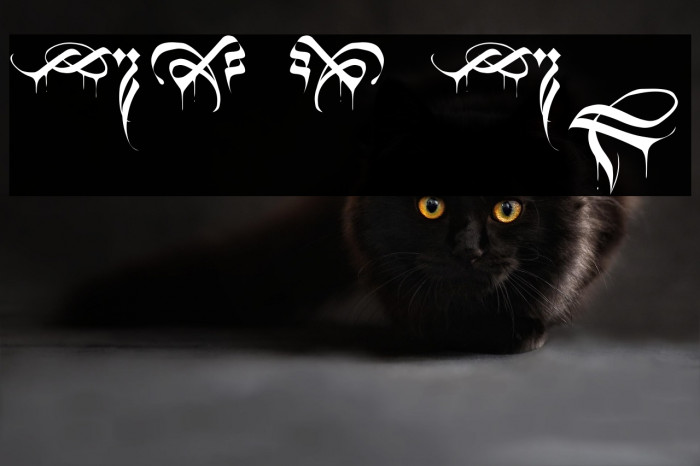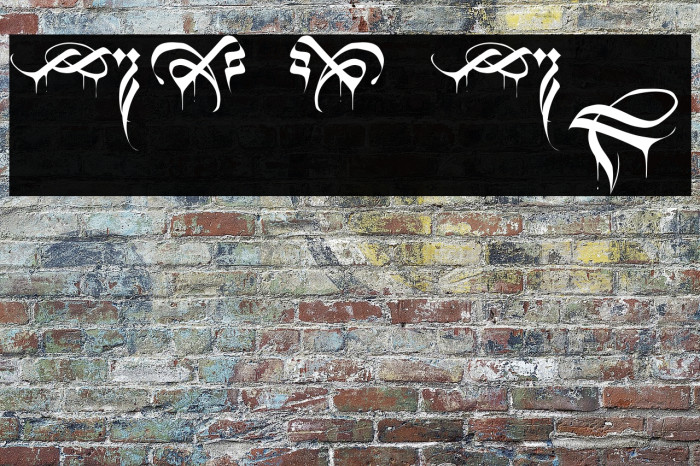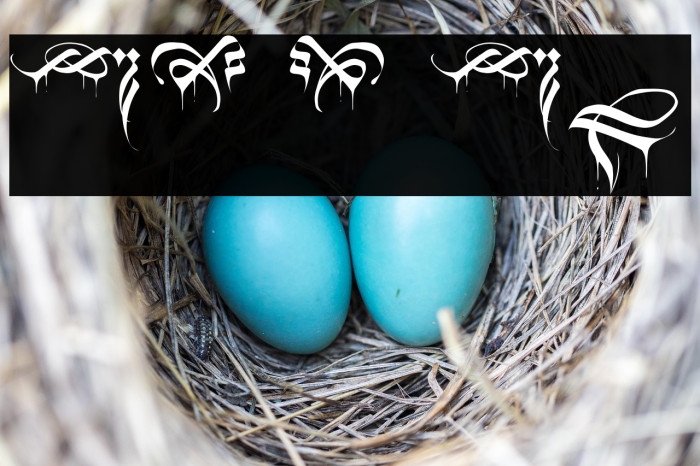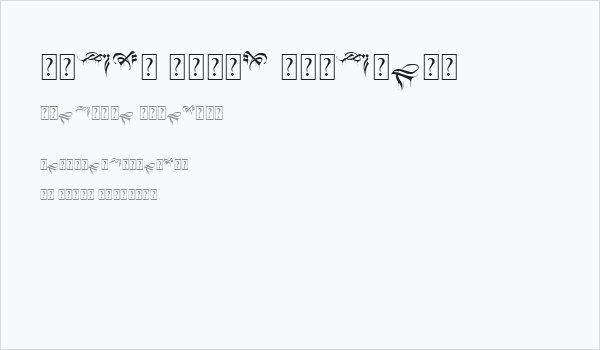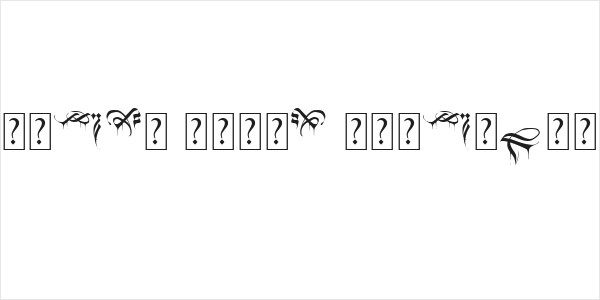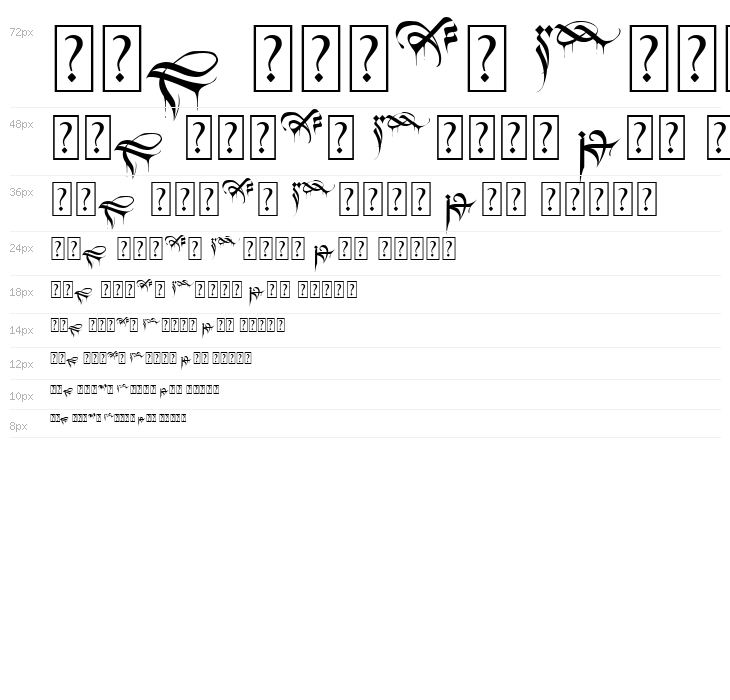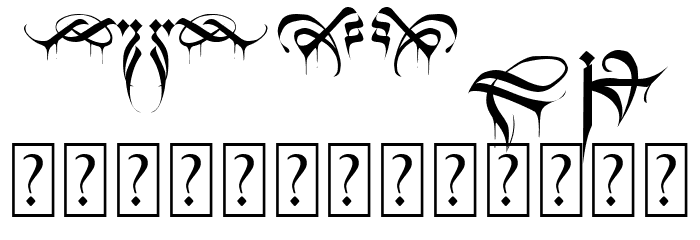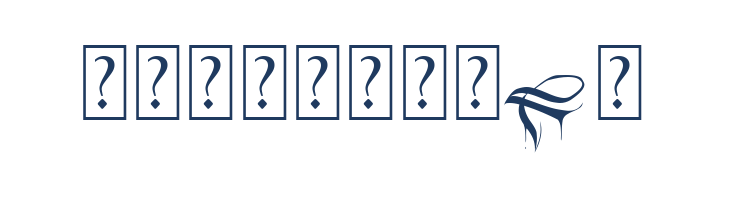
Black Blood Ornament Font
Black Blood Ornament Description
This font features an intricate and ornamental design, characterized by elaborate curves and sharp, pointed elements that evoke a sense of mystery and gothic elegance. The characters are highly stylized, with each letter incorporating unique flourishes and embellishments that create a dramatic and eye-catching appearance. The overall aesthetic is reminiscent of tribal tattoos or ancient calligraphy, making it suitable for projects that require a bold and artistic touch. The font's decorative nature suggests it is best used sparingly to maintain legibility and impact.
Proposed ProjectsIdeal for tattoo designs, gothic-themed posters, album covers, and fantasy book titles.